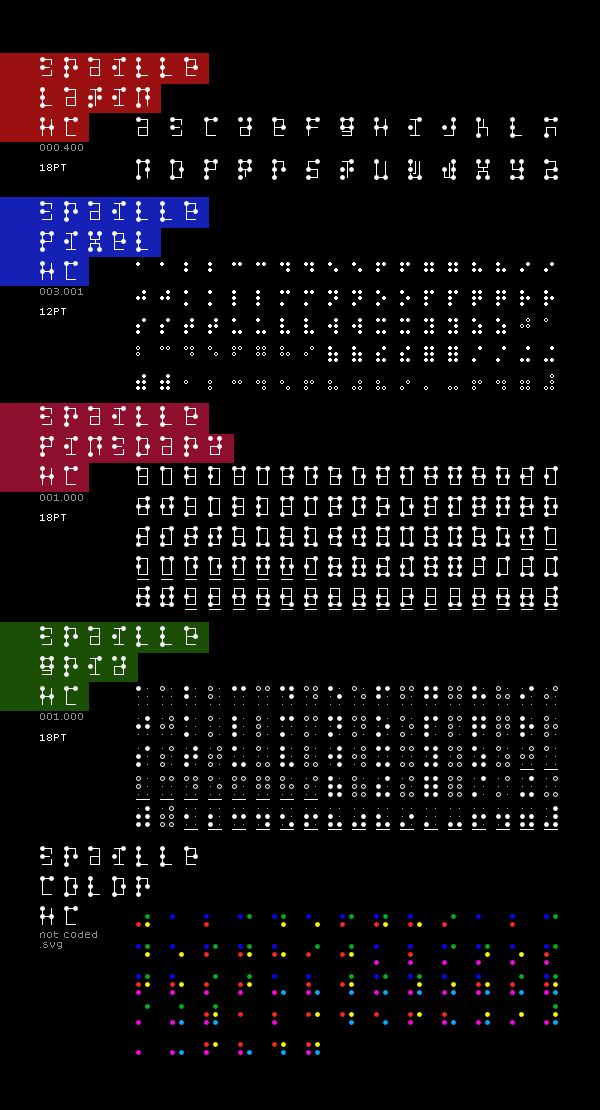
Braille pixel hc Czcionka
Braille HC is a work-in-progress family of typefaces based on the Braille language. Four styles [ Pixel, Pinboard, Grid, Latin ] and a color .svg to be developed.
Roberto Mocci